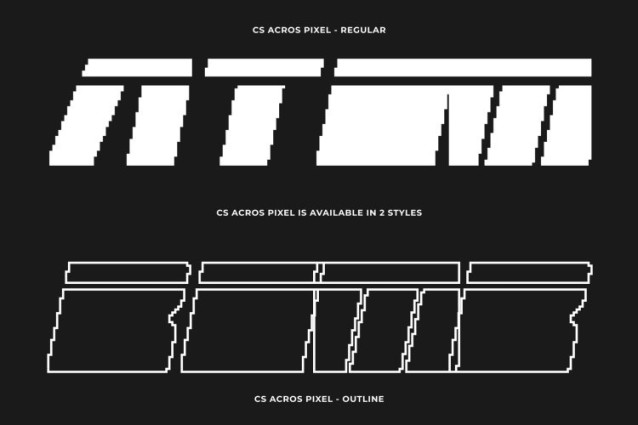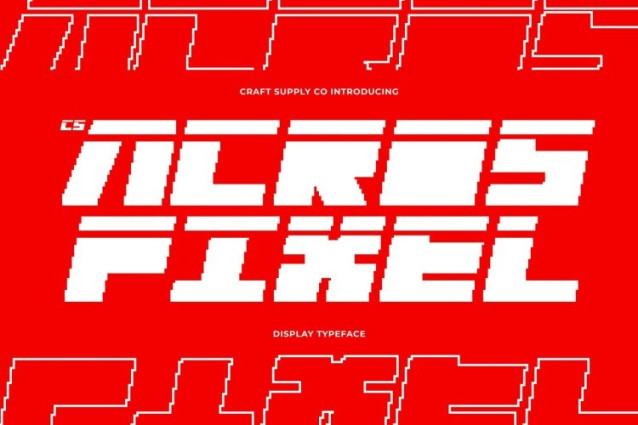
CS Acros Pixel Font
CS Acros Pixel Font This is a futuristic display font powered by bold digital energy and a strong visual presence. Its blocky, techno-inspired construction instantly communicates innovation and momentum, making it ideal for designs that aim to feel modern, powerful, and cutting-edge. The pixel style reinforces its digital roots, giving it a distinctly tech-forward attitude.
Blocky Techno Forms for High-Impact Design
Built from solid geometric shapes, this font delivers a confident and commanding appearance. Sharp angles, rigid structures, and pixel-based forms reflect a high-tech, digital aesthetic that ensures maximum impact. Its bold construction makes it especially effective for headlines, titles, covers, and large-scale typography that demands attention.
Pixel Detailing with Expressive Digital Character
What sets This font apart is its pixel treatment, which adds a retro-digital texture to its futuristic forms. This pixel layer introduces visual character and depth, blending classic 8-bit inspiration with modern techno design. The result is a font that feels both nostalgic and forward-looking, balancing precision with expressive digital charm.
Perfect for Futuristic Branding and Creative Projects
This font perfect for futuristic branding, tech products, game design, sci-fi visuals, posters, book covers, and experimental digital projects. Its fusion of strong techno structure and pixel-art influence allows designers to create bold, memorable compositions that feel innovative, dynamic, and unmistakably digital.